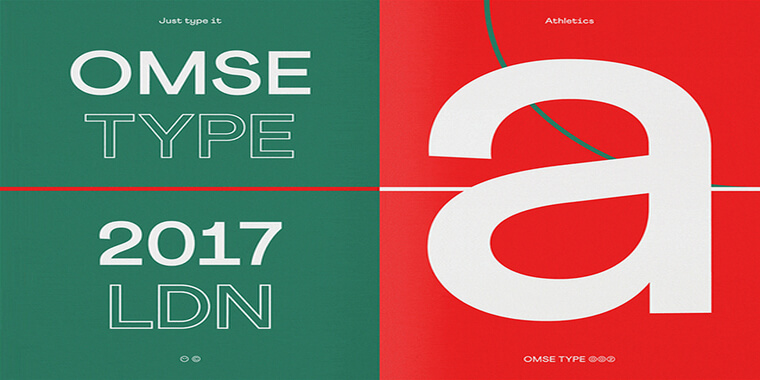
Athletics Font is a monolinear Sans serif typeface that looks like straight lines and has no fancy designs. This font has a practical and bold design with long lines, uneven curves, and a small opening. The Athletics font is a sports typeface that is designed to show strength, speed, and athleticism.